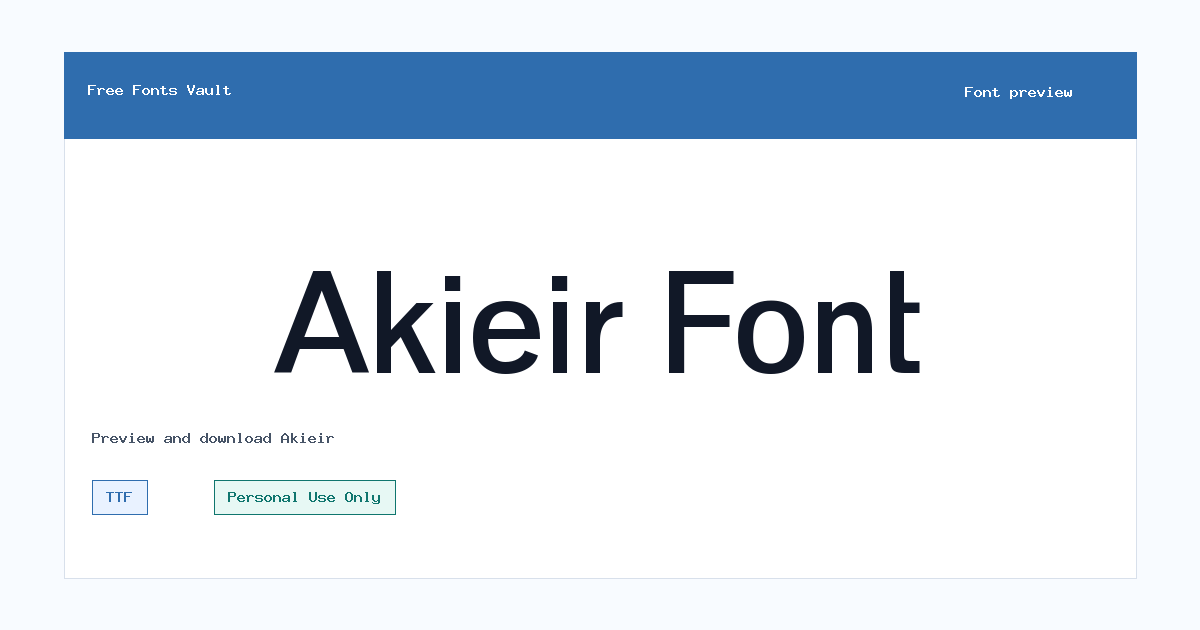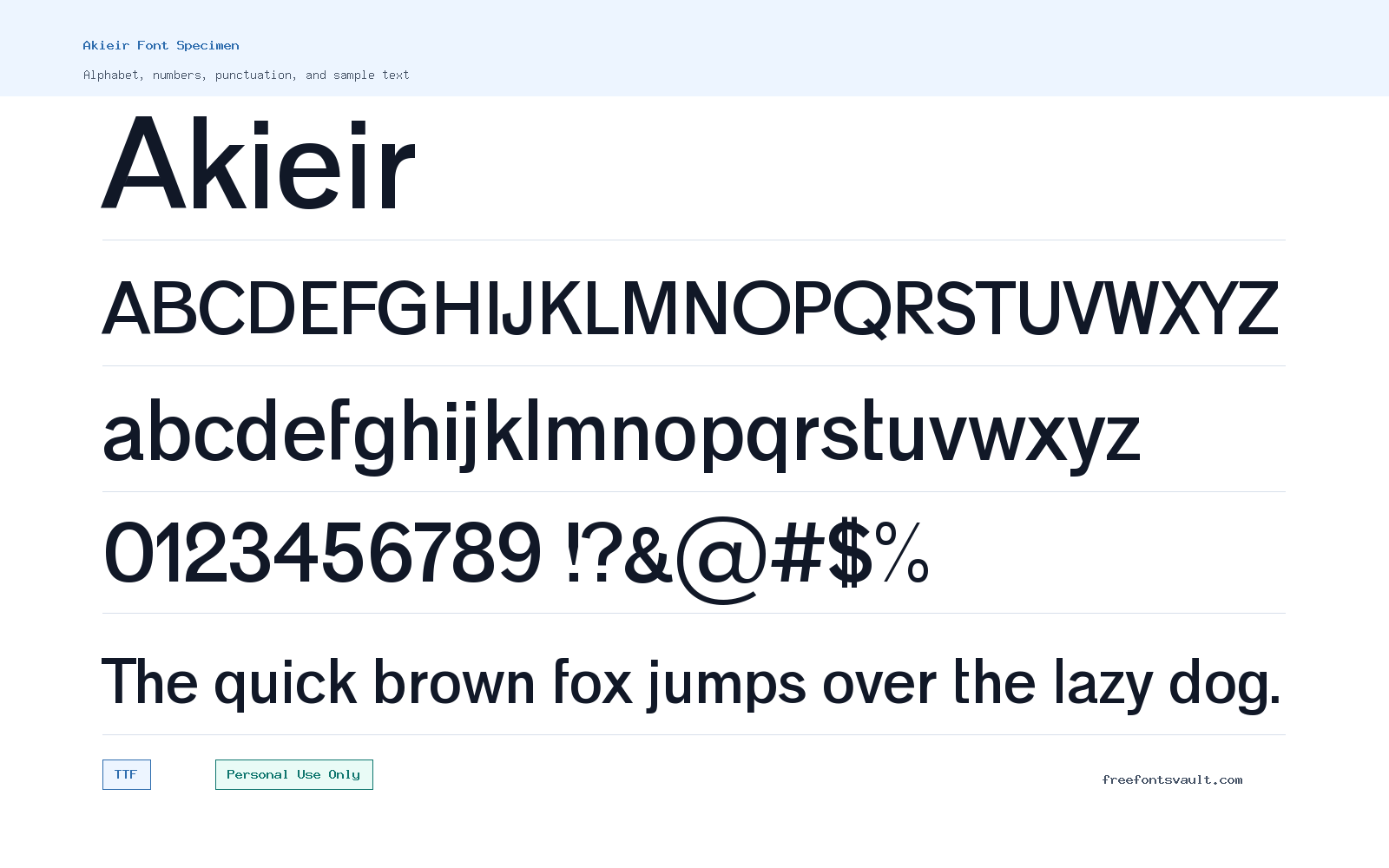
Akieir
Akieir is a sans serif font for personal design projects where you want a clean, modern look without heavy decoration. It is best tested in the preview first, especially for headings, short labels, and graphic layouts.
About Akieir Font
Akieir comes in a regular style with normal weight, making it a straightforward choice for users who need a simple sans serif display option. Its clean category and single regular cut make it easier to try quickly: type your own words, check the spacing, and see how the letters behave at the size you plan to use. Because the available file is a TTF font, it should work in many common design apps after installation, including tools used for posters, social posts, thumbnails, invitations, and personal branding drafts.
For best results, use Akieir where short text matters more than long reading. It can suit titles, name cards, simple logos for personal mockups, quote graphics, section headers, and clean image overlays. Before using it in a finished design, test uppercase and lowercase words, numbers, and punctuation. Some fonts look great in a wordmark but feel tight in a sentence, so check the exact phrase you want to publish. If you need a full paragraph, pair Akieir with a more neutral body font and keep Akieir for the headline or accent text.
- Regular sans serif style with normal 400 weight
- Clean display-friendly structure for short text, headings, and simple graphics
- Personal posters, flyers, and quote graphics
- Social media images, thumbnails, and story covers
- Clean headings, labels, and title treatments
- Personal logo drafts, mood boards, and layout experiments
What is Akieir best used for?
Akieir is best tested for short design text such as headings, posters, social graphics, labels, and personal logo drafts.
Can I use Akieir for body text?
You can test it for short passages, but it is safer to use Akieir for titles or accents and pair it with a simpler body font for longer reading.